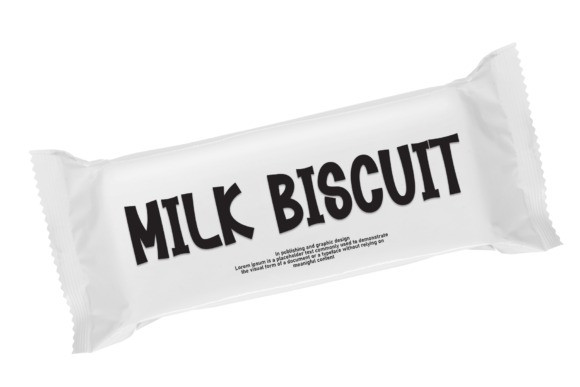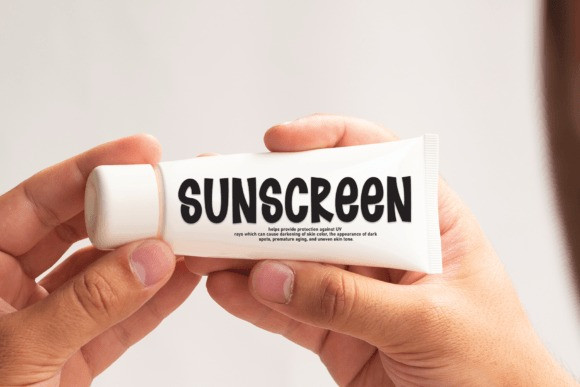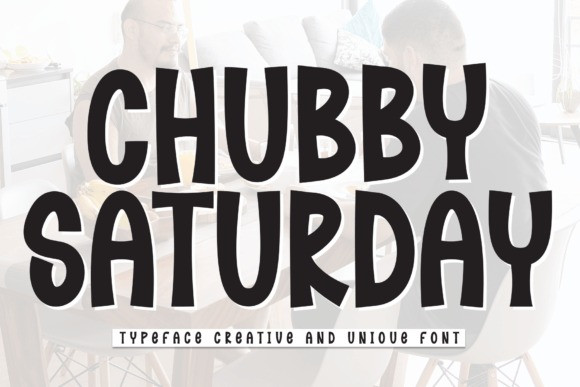
Chubby Saturday Font
Chubby Saturday Font is a fun and versatile display font. Whether you’re using it for crafting, digital designing, presentations, or greeting card making, it’s perfect!